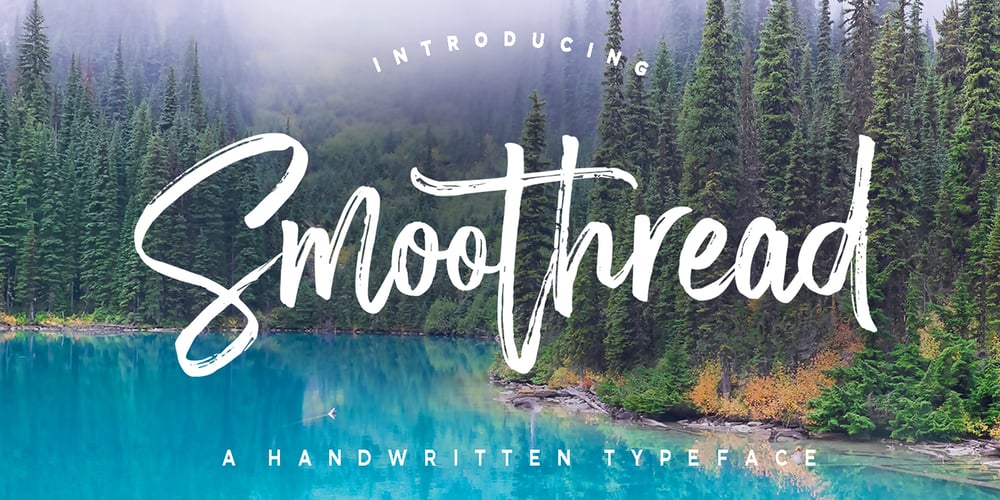
Smoothread Font Family was designed by Mauli Zari and published by Dhan Studio. Smoothread contains 3 styles and family package options. Smoothread is a handwritten brush font, a contemporary approach to design, handmade natural look, suitable for use in title design such as clothing, invitations, book titles, stationery designs, quotes, branding, logos, greeting cards, T-shirts, packaging designs, posters, and more. Smoothread has two weights: Smoothread Regular and Smoothread Slant. They are complete with uppercase and lowercase letters, as well as multi-language support, numbers, punctuation. Ligatures and extra swash characters are also provided.